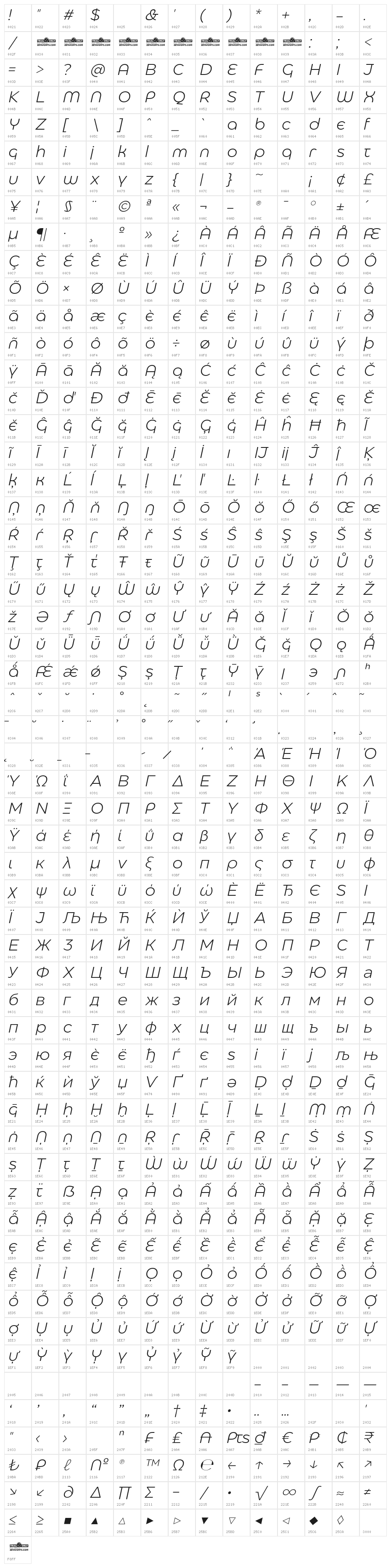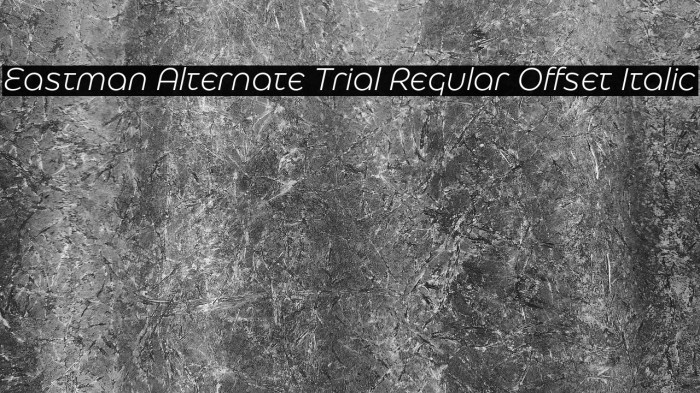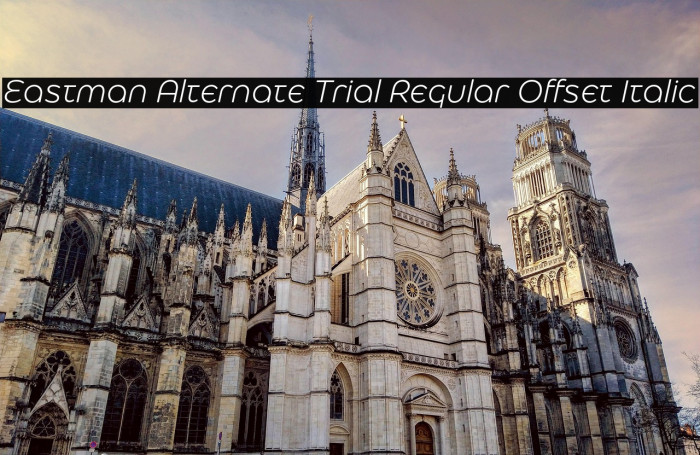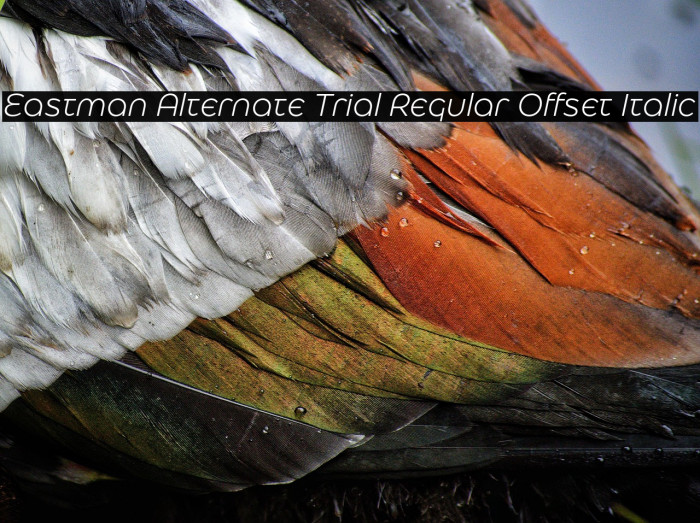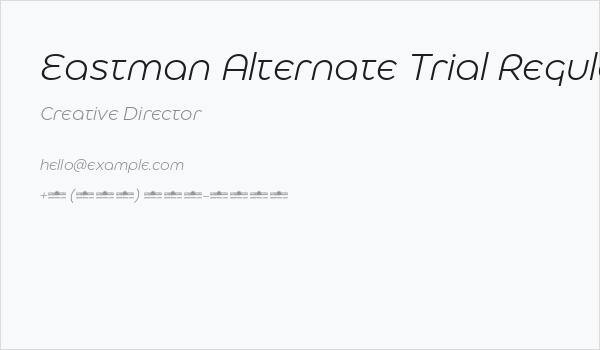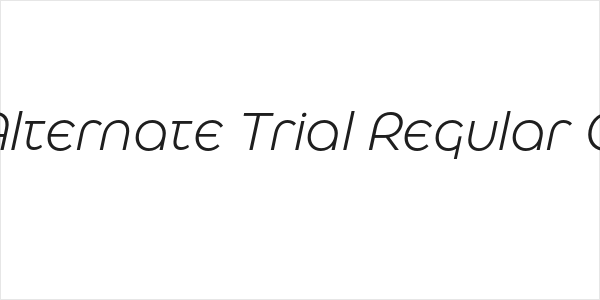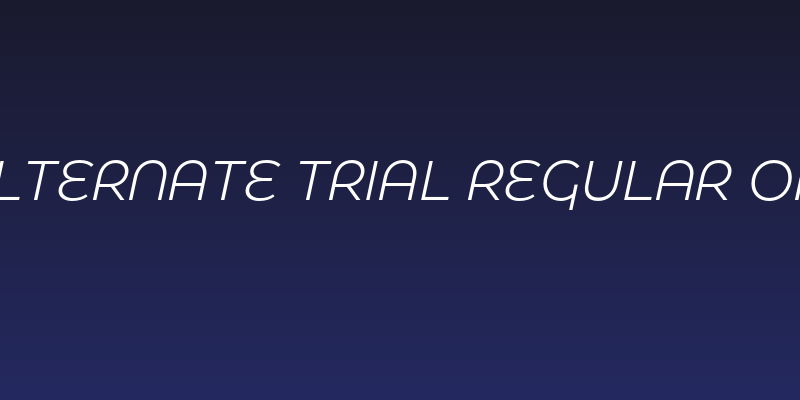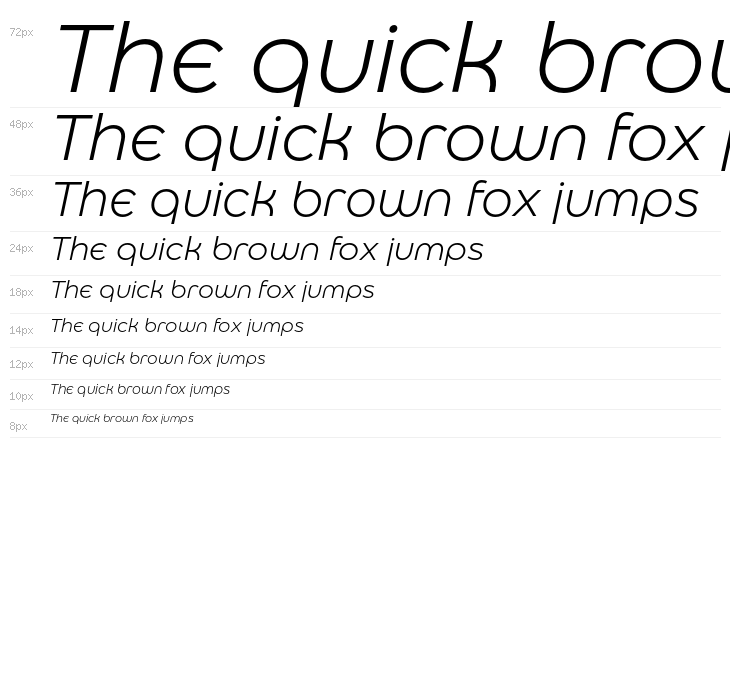
Eastman Alternate Trial Regular Offset Italic Font
Eastman Alternate Trial Regular Offset Italic Description
This font presents a sleek and modern aesthetic with its clean lines and subtle curves. The uppercase letters are slightly elongated, giving a sense of elegance and sophistication. The lowercase letters maintain a consistent flow, enhancing readability while retaining a unique style. The numerals are well-proportioned, complementing the overall design. Special characters are crafted with precision, adding to the font's versatility. Its italic nature adds a dynamic feel, making it suitable for various creative applications.